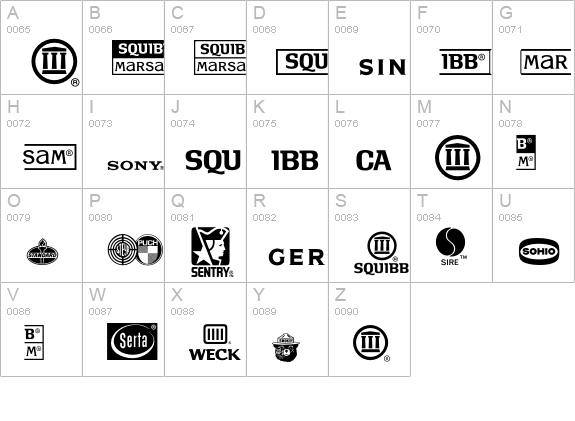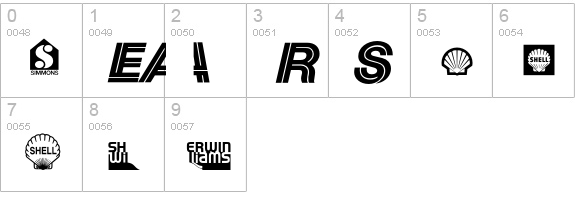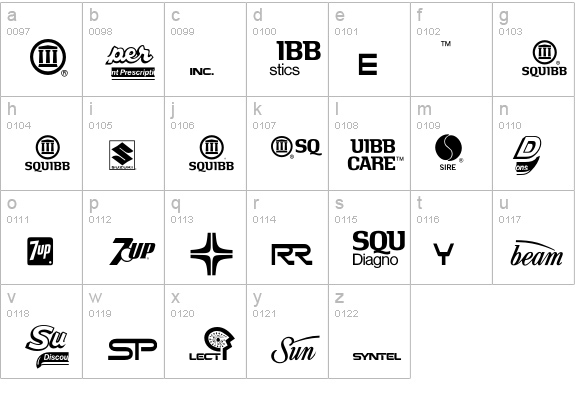
LogosCompanyP16 Font Details
LogosCompanyP16 font is a modern and stylish typeface that exudes sophistication and professionalism. With clean lines and a sleek design, this font is perfect for a wide range of projects, from branding to advertising to web design. Its versatility makes it a valuable asset for any designer looking to make a bold statement. The best part? LogosCompanyP16 font is completely free to download at FontsMarket.com. This means you can access this high-quality font without any cost, making it a fantastic option for both personal and commercial use. Whether you're creating a logo for your business or designing promotional materials for a client, LogosCompanyP16 font has got you covered. Don't miss out on the opportunity to enhance your designs with this elegant and versatile font. Download LogosCompanyP16 today and take your projects to the next level.